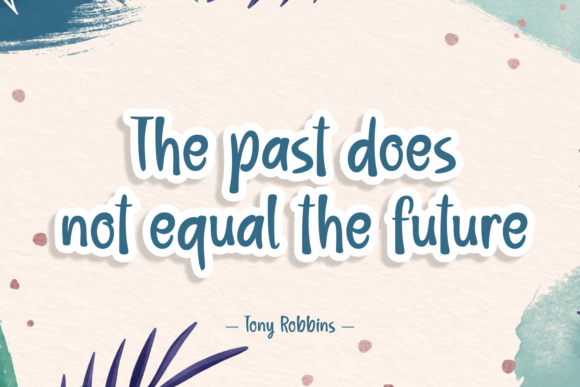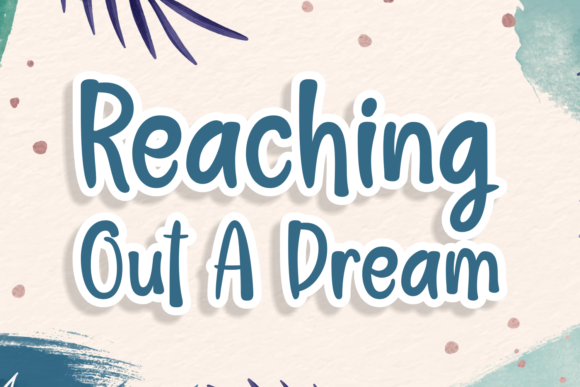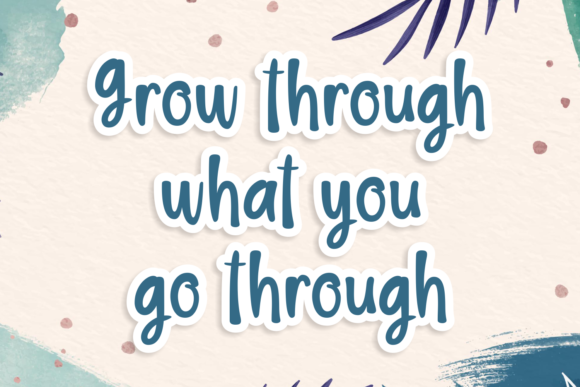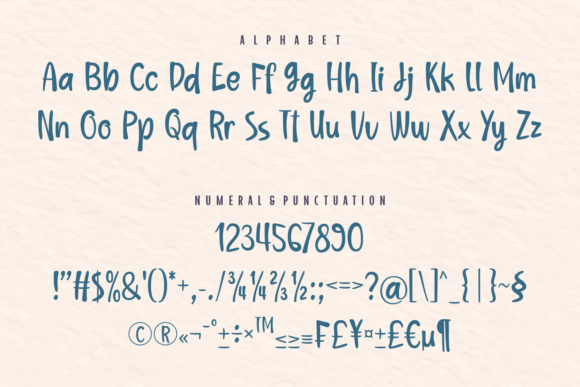
Mangelo Font
Mangelo is a playful and casual handwritten font. No matter the topic, this font will be an incredible asset to your fonts’ library, as it has the potential to elevate any creation.